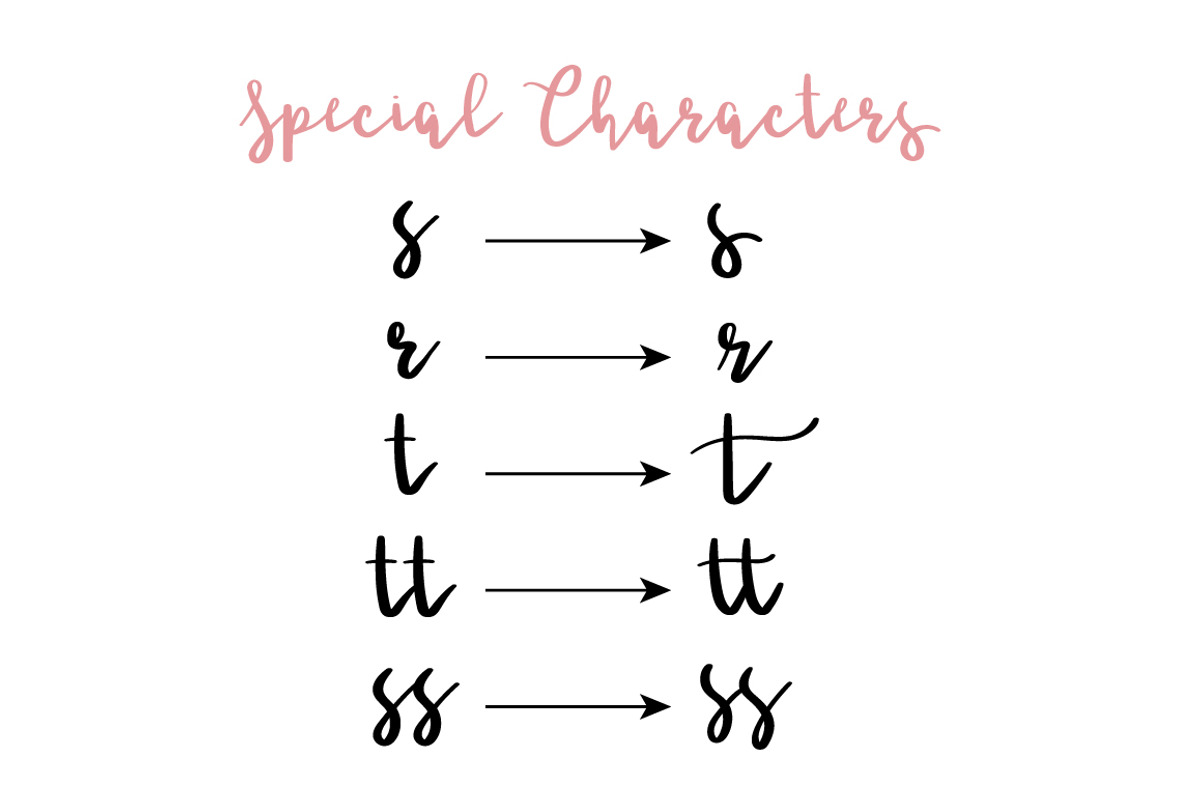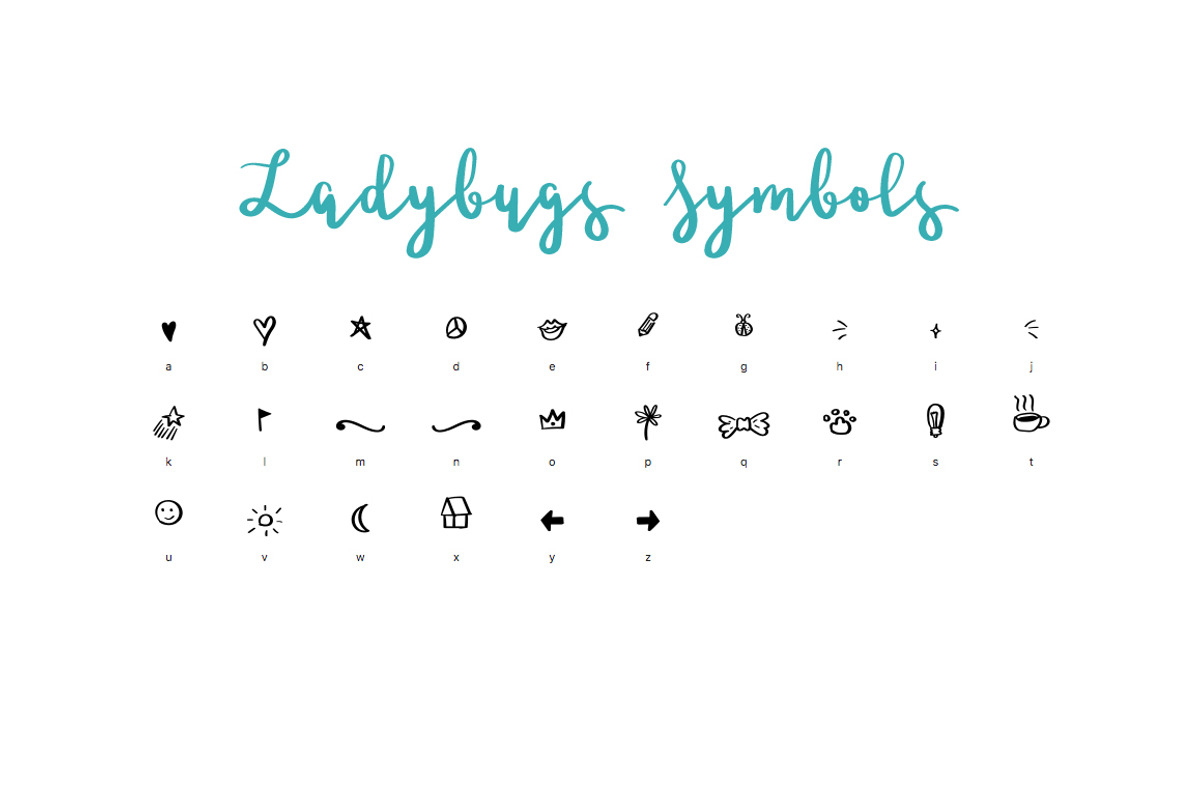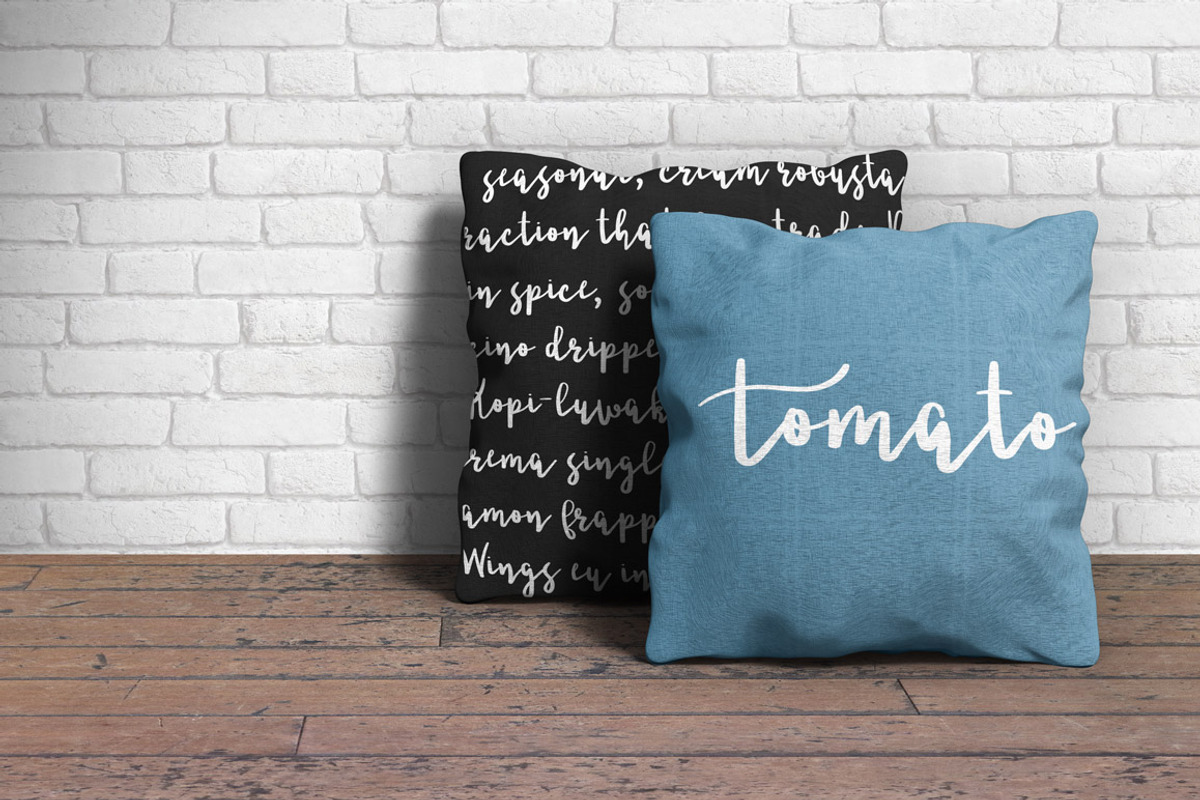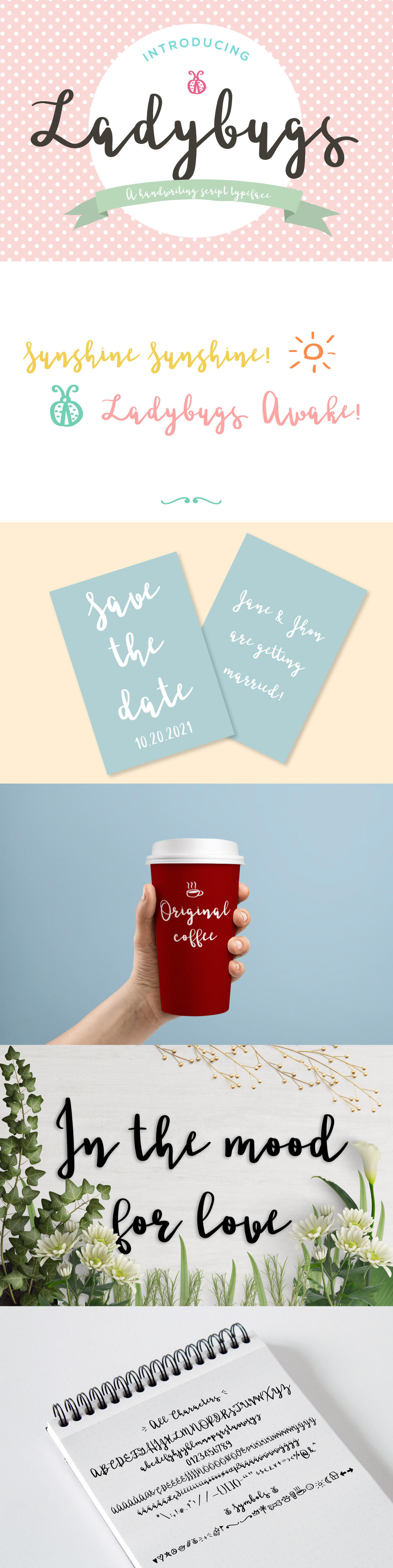
Ladybugs Script Font
Ladybugs is a handwriting script typeface designed to give off a cute and relaxed vibe.
- Standard English(A-Z, a-z) and Western European languages supported, numbers(0-9), punctuations, alternate characters and ligatures
- Cute doodle symbols